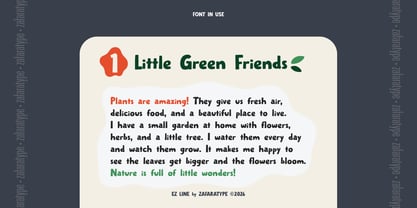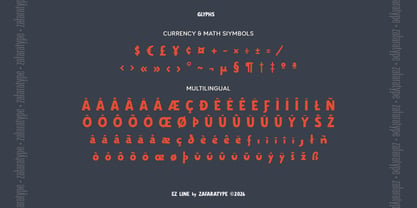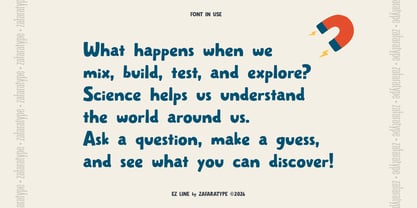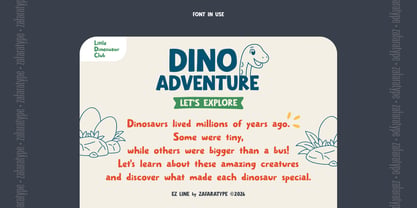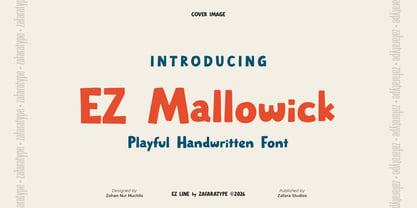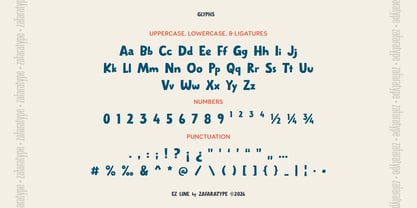
EZ Mallowick
by Zafara Studios
The EZ Mallowick Font Family was designed by Zohan Nur Muchlis and published by Zafara Studios. EZ Mallowick contains 1 styles. More about this family
EZ Mallowick is a charming and playful handwritten font that blends bold, rounded strokes with a fun and expressive personality. Featuring chunky letterforms, soft curves, and naturally bouncy details, it brings a cheerful and friendly touch to your designs while keeping every word bold, warm, and full of character.
Designed to capture the charm of playful, expressive handwriting, EZ Mallowick is perfect for branding, logos, packaging, posters, social media, greeting cards, quotes, children’s designs, stickers, merchandise, and other creative projects. Its bold yet approachable style makes every design feel fun, casual, and memorable.
Designers: Zohan Nur Muchlis
Foundry: Zafara Studios